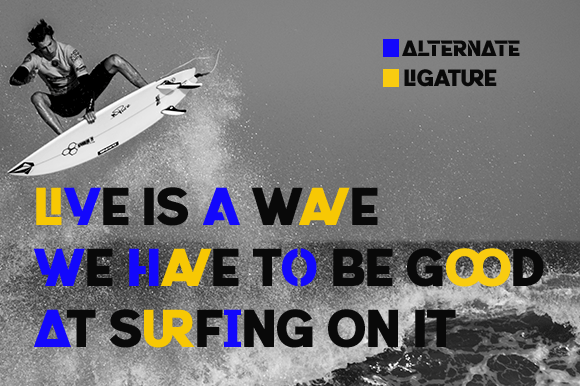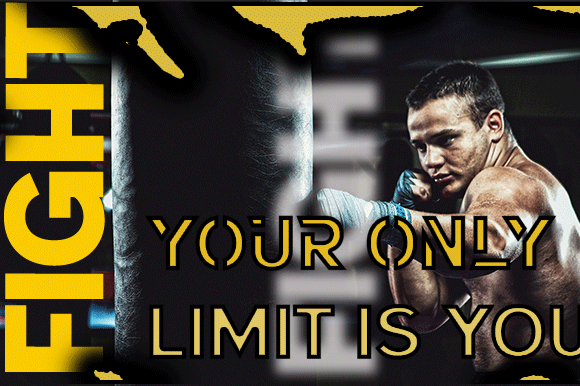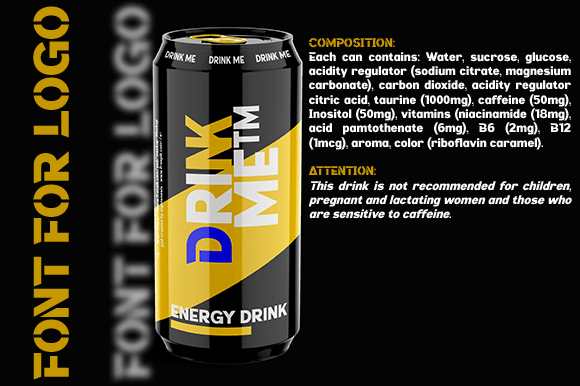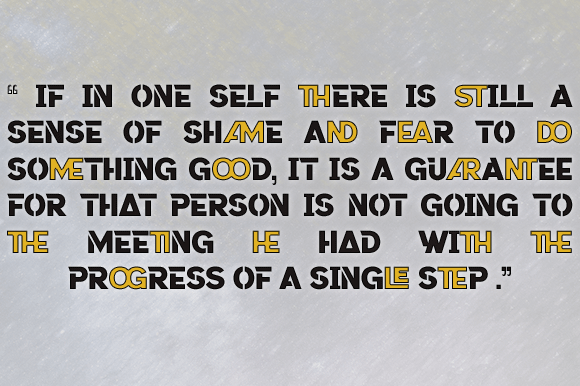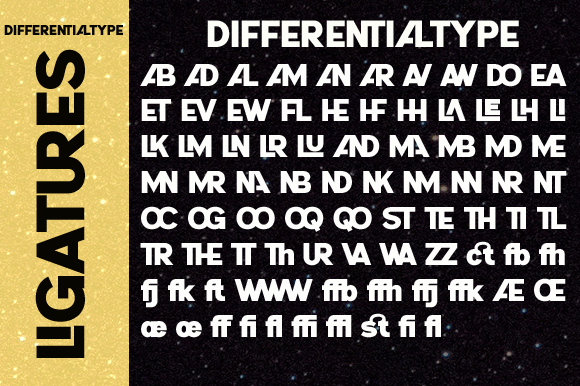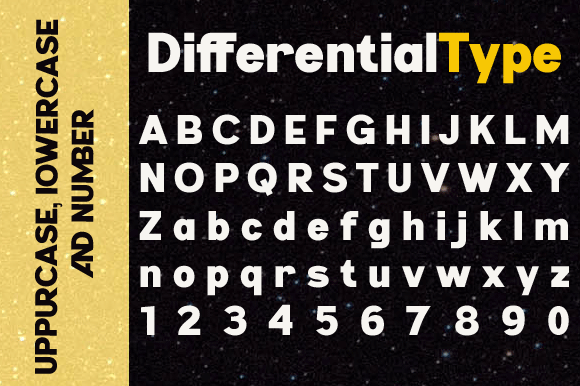
Introducing Alderamind Font: The Ultimate Display Font for Bold Statements
In the world of typography, fonts play a crucial role in conveying messages, expressing emotions, and creating visual identities. For designers and crafters, finding the right font can make all the difference in elevating their creations from ordinary to extraordinary. This is where Alderamind Font comes into play – a cool, bold, and assertive display font that is poised to revolutionize your font library.
The Power of Alderamind Font
Alderamind Font is not just another addition to the vast sea of fonts available online. Its unique blend of boldness and assertiveness makes it a standout choice for projects that demand attention-grabbing typography. Whether you’re working on a branding project, a marketing campaign, or simply looking to add some personality to your digital or print creations, Alderamind Font is designed to make a statement.
One of the key strengths of Alderamind Font is its incredible versatility. No matter the topic or theme of your project, this font seamlessly adapts to ensure your message is conveyed with clarity and impact. From bold headlines and titles to creative slogans and taglines, Alderamind Font brings a level of sophistication and professionalism that is hard to match.
Why Choose Alderamind Font?
- Unique Character: Alderamind Font boasts a distinctive style that sets it apart from more generic fonts. Its bold and assertive nature ensures your text doesn’t go unnoticed.
- Ease of Use: Designed with user-friendliness in mind, Alderamind Font can be easily integrated into various design projects, making it a practical choice for designers of all skill levels.
- High-Quality Design: Crafted with precision and attention to detail, Alderamind Font offers a high level of legibility and aesthetic appeal.
- Cross-Platform Compatibility: Whether you’re working on a website, social media graphics, or print materials, Alderamind Font performs exceptionally well across different mediums.
Applications of Alderamind Font
The applications of Alderamind Font are vast and varied. Here are a few examples of how you can leverage this powerful font in your projects:
- Branding and Logo Design: Create memorable logos and brand identities that stand out from the competition.
- Marketing and Advertising: Use bold and assertive typography to grab attention and drive engagement in your marketing campaigns.
- Web Design: Enhance the visual appeal of your website with striking headlines and titles that leave a lasting impression.
- Social Media Graphics: Elevate your social media presence with eye-catching graphics and posts that utilize Alderamind Font.
- Print Materials: From brochures and posters to business cards and flyers, Alderamind Font adds a touch of elegance and professionalism to any print material.
Alderamind Font is more than just a display font – it’s a tool for creative expression and effective communication. Its bold and assertive style, combined with its versatility and ease of use, makes it an invaluable asset for designers and crafters looking to elevate their projects. Whether you’re aiming to make a bold statement or simply enhance your visual identity, Alderamind Font is the perfect choice. So, why settle for ordinary when you can make a statement with Alderamind Font? Dive into the world of bold typography and discover the difference it can make in your creations.